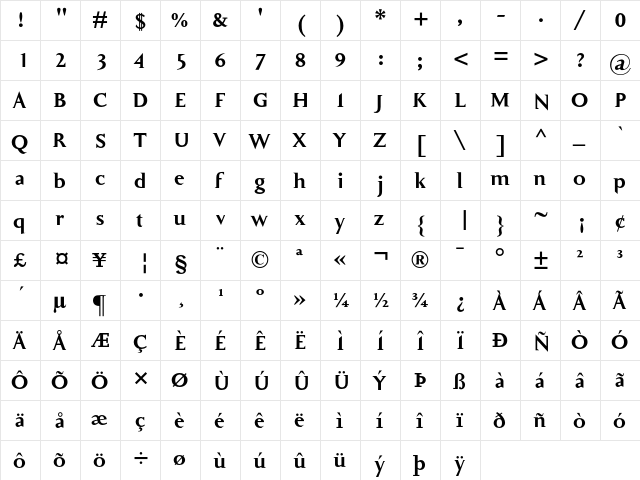
KopyKattKut-Bold Katt Kut-Bold Font Preview
KopyKattKut-Bold Katt Kut-Bold
Design Context for KopyKattKut-Bold Typeface
KopyKattKut-Bold offers clean, dependable letterforms without strong stylistic allegiance, making it a practical choice for designers who need flexibility. The heavy weight commands attention and anchors typographic hierarchies.